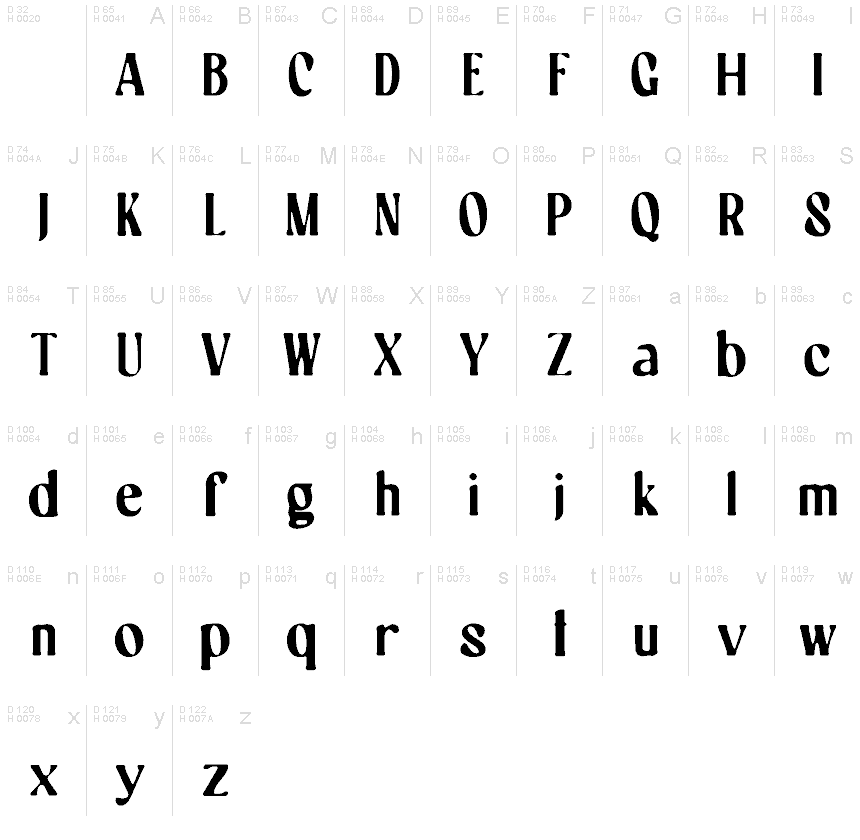
MagelyBlur-Regular
Magely Blur font by Craft Supply Co. is a condensed serif with an approachable charm and soft curves. This delicate typeface combines modern influences with subtle elegance, building a design characterized by simplicity and readability.
Let this free serif display font dictate the beauty of your magazine covers, packaging projects, books tites, posters, flyers, and other innovative designs! Magely Blur can also be used for branding and typography art/illustrations among many other ideas.